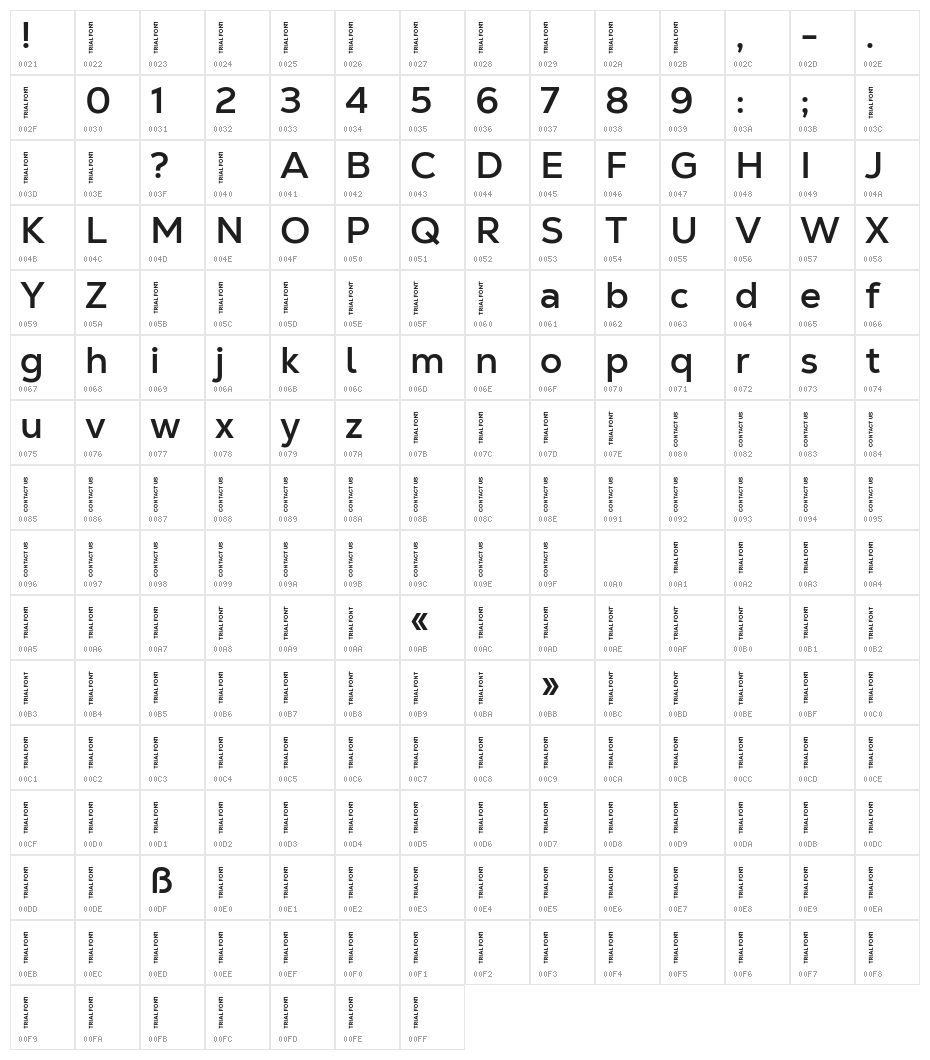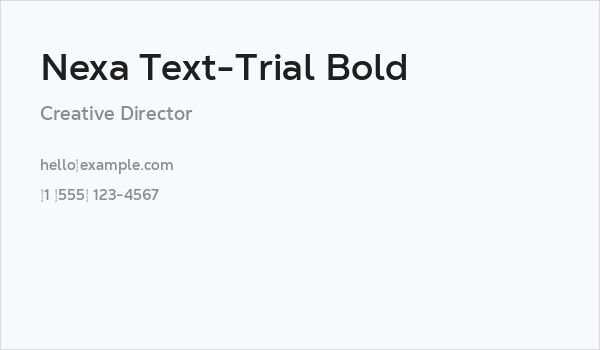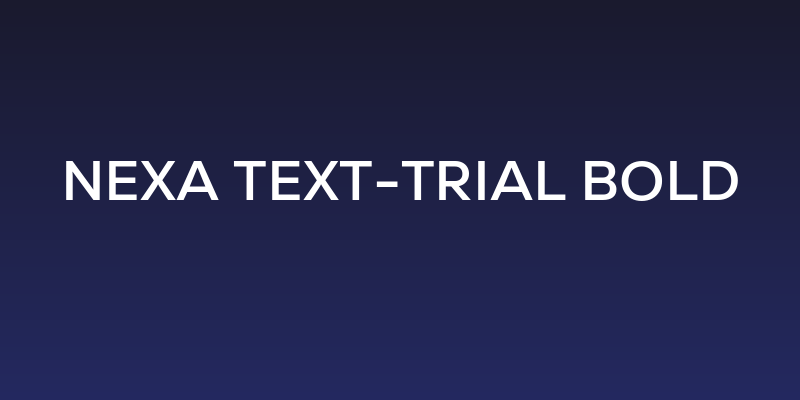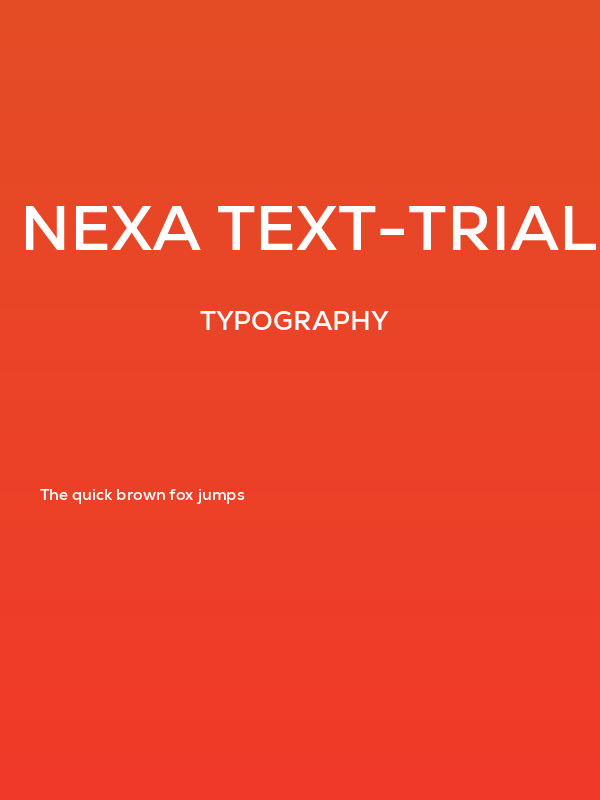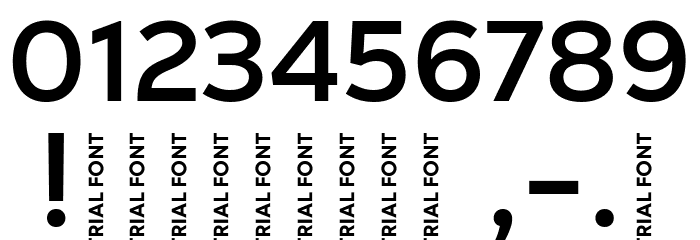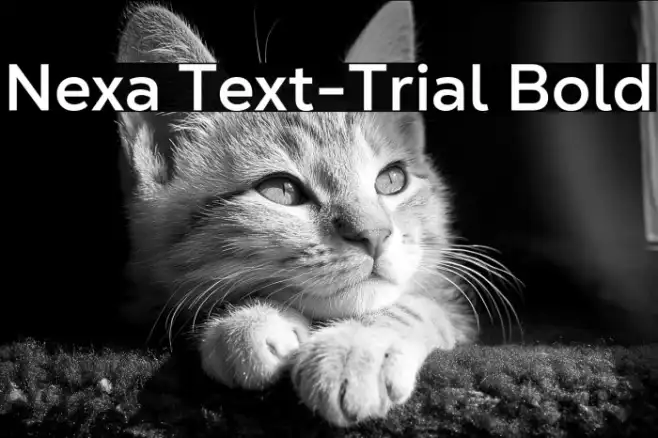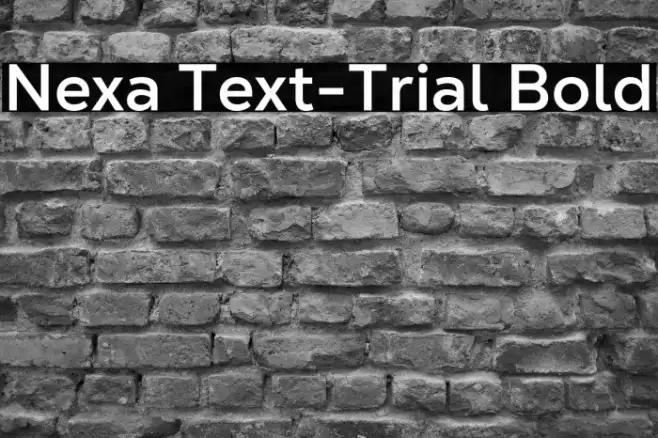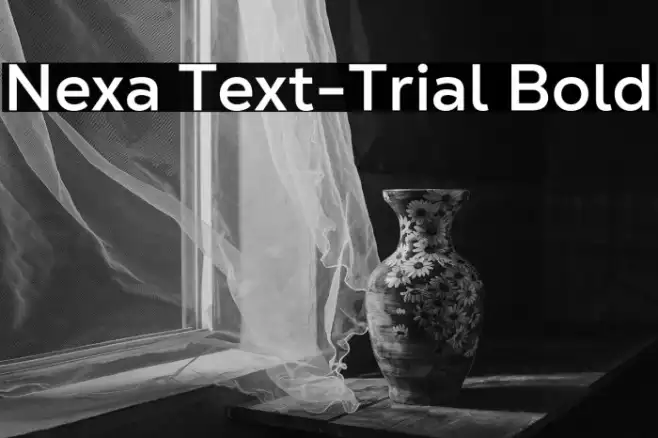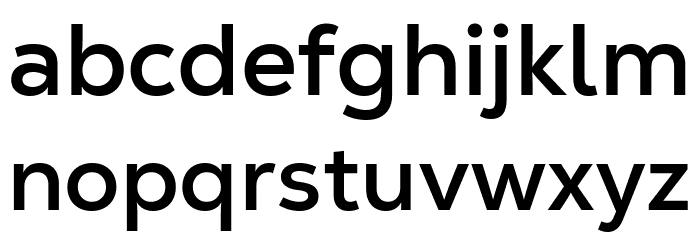
Nexa Text-Trial Bold Font
Nexa Text-Trial Bold Description
This font features a clean and modern sans-serif style with a bold weight, offering excellent readability and a contemporary aesthetic. The characters are well-proportioned with a consistent stroke width, providing a uniform appearance across both uppercase and lowercase letters. The numerals are clear and distinct, making them suitable for various applications. Special characters are included, maintaining the same bold and modern design. The overall look is sleek and professional, ideal for digital and print media.
| Proposed Projects | Ideal for branding, advertising, web design, and editorial projects where a modern and bold typeface is required. |